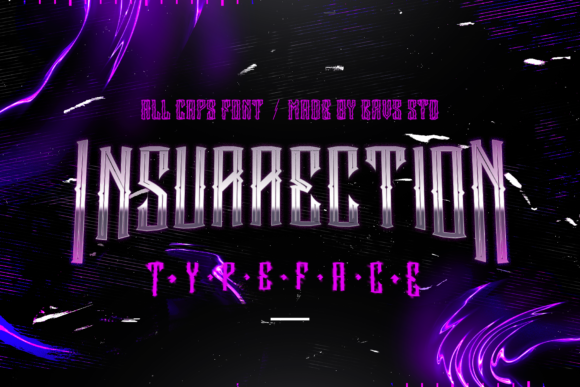
Prepare to be enthralled by Insurrection, a blackletter font that exudes defiance and boldness. Created by the ingenious febryan.satria1, this font is not just a collection of letters, but a gateway to a world of endless creativity. With Insurrection, you'll leave behind the ordinary and embrace the extraordinary.
Unleash your imagination and let Insurrection take center stage in your designs. Its captivating glyphs dance across the page, demanding attention and leaving an indelible mark on your audience. From posters that roar with personality to logos that command respect, Insurrection is the ultimate weapon in your creative arsenal.
This font is your passport to a world of limitless possibilities. Let your imagination run wild as you explore the depths of your creativity. Insurrection is the perfect font for those who dare to be different, for those who crave a font that is as unique and captivating as they are.
With its unmatched elegance and sophistication, Insurrection is the font that will set your work apart from the mundane. As you type each letter, feel the power of Insurrection elevate your words, transforming them into something truly remarkable.